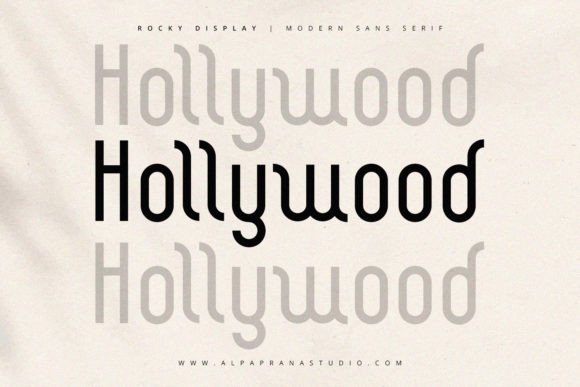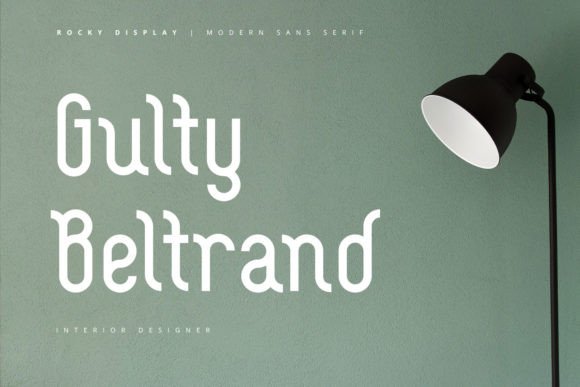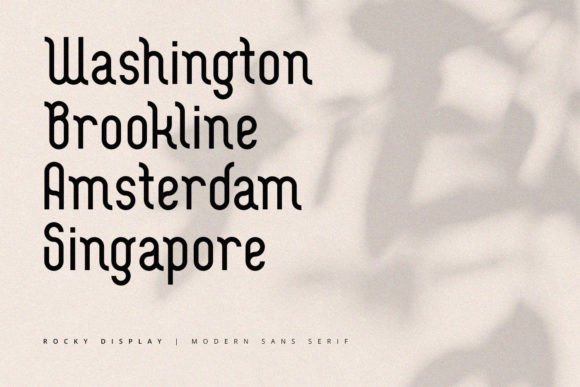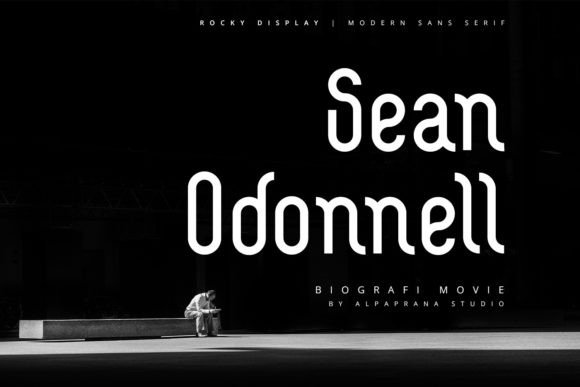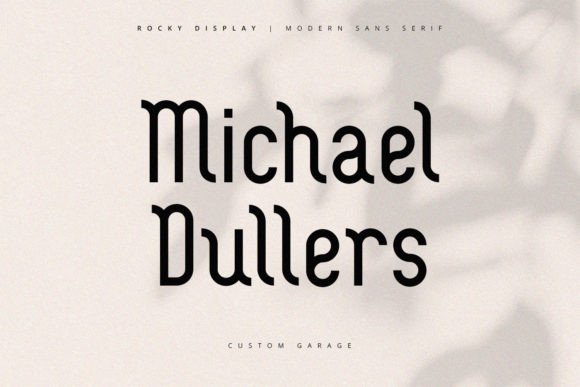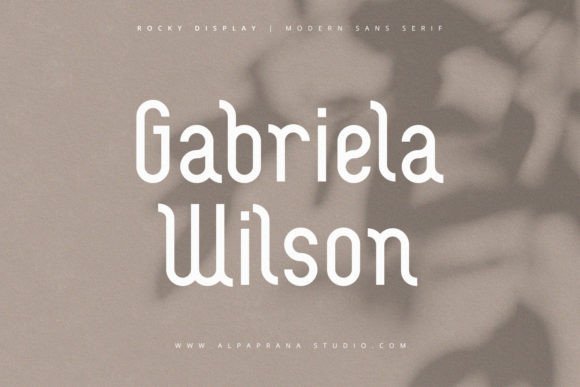
Introduction to Rocky Display Font
Rocky Display is a modern sans serif font with a natural and casual feel.
Contemporary and fresh, it is perfect for any design you wish to create Add it to your creative projects and make them outstanding.
Key Features of Rocky Display Font
Why Choose Rocky Display Font?
Rocky Display Font offers exceptional quality and versatility, making it a valuable addition to your design toolkit. Whether you’re creating for personal projects or commercial use, Rocky Display Font delivers professional results.